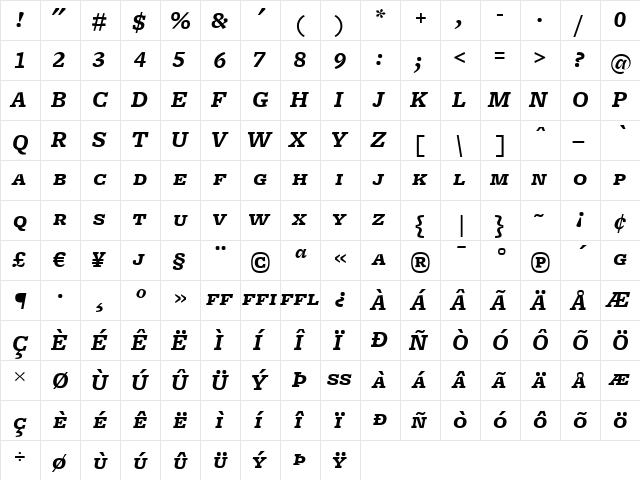
FreightMicro BoldItalicSC Font Preview
FreightMicro BoldItalicSC
FreightMicro BoldItalicSC Font Details
| Style | BoldItalicSC |
| Foundry | Joshua Darden & Phil's Fonts, Inc |
| Designer | Joshua Darden |
Design Context for FreightMicro Typeface
FreightMicro takes a measured approach to typography — its balanced proportions and neutral character make it a reliable workhorse for both digital and print work. The dynamic lean of this cut emphasises speed and emphasis in any layout. The heavy weight commands attention and anchors typographic hierarchies.